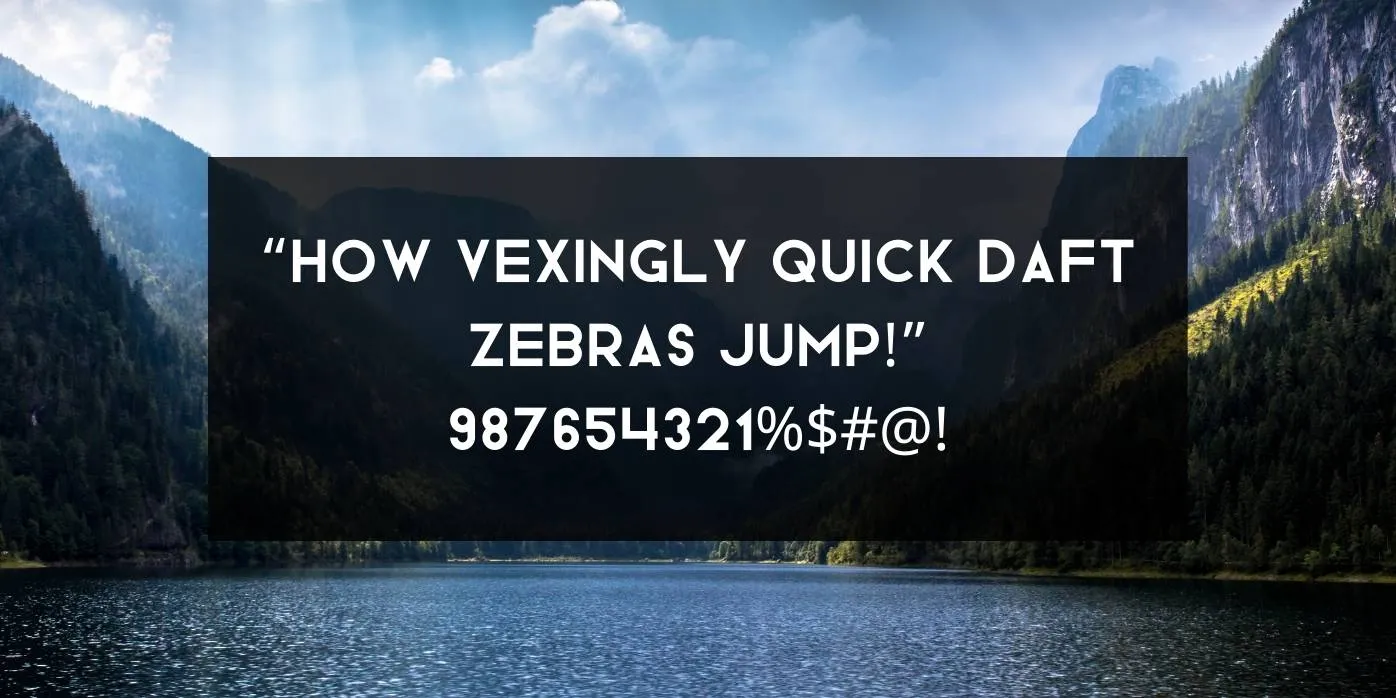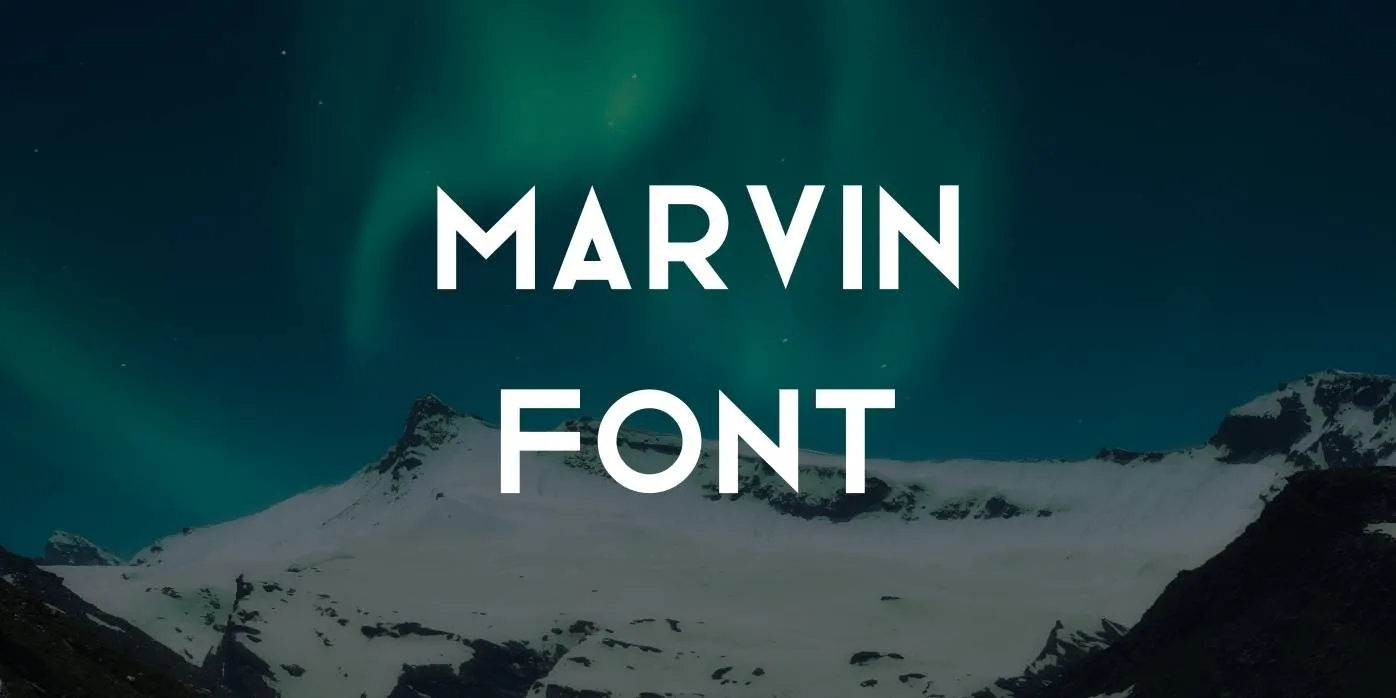
Marvin Font
Today, we are consulting on a famous typeface known as Marvin Font. This typeface was developed by Michael Chave. It belongs to the sans serif fonts category. This font was first released on 4th May 1969.
You can also use this typeface for CSS and SVG. This typeface has a unique and stylish look. The shapes of the letters are very different from the other sans serifs out there. This stylish font is perfect for headlines, logos, and short texts.
This stylish typeface comes in different styles and weights. You can also use it for Adobe and Canva. You can use aquawax font which has the same style and characters as this one. Marvin Font is a great choice for those who are looking for something unique and stylish.
This typeface is perfect for headlines, logos, and short texts. If you are looking for a sans serif font with a unique and stylish look, then Marvin Font is the perfect choice for you. This gorgeous typeface will provide the facility of an online generator tool that is suitable for all graphic design projects.